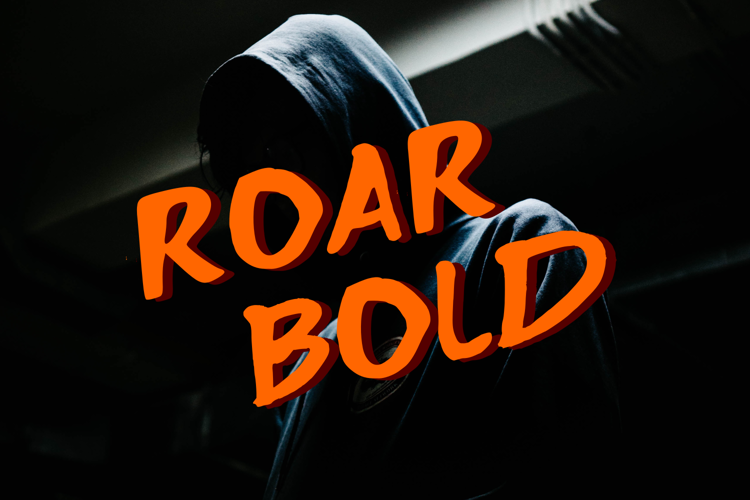
Roar Bold Font
Roar Bold is a casual, yet strong display font that will put a bold and unique twist on any design project. Get inspired by its unique charm.